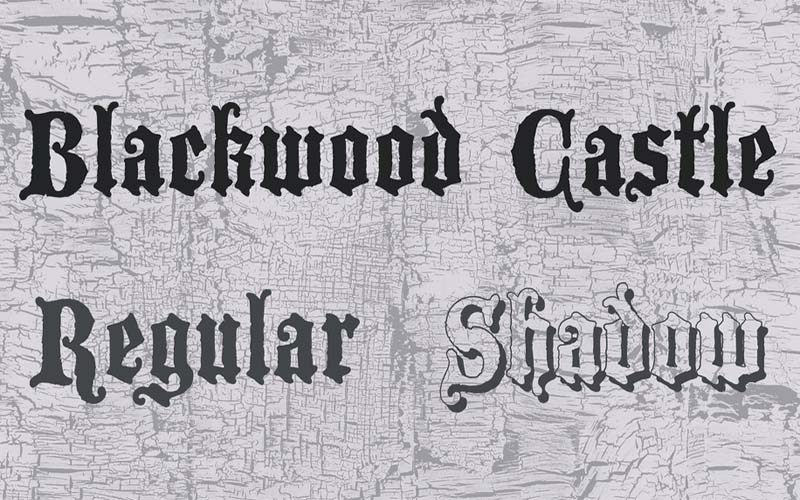
Blackwood Castle font is a Gothic and Medieval typeface. It looks attractive, interesting, and deligated stylish texture which has black, Halloween, and shadowed letters.
Dieter Steffmann is known as a primary font designer of Blackwood Castle font. He made about 600 self-proclaimed old-fashioned fonts. He also has his own Font Shop with the name of Dieter Steffmann’s foundry in Kreuztal.
This ancient and holiday font was published on May 22, 2000. The subfamily of Blackwood Castle font is regular. This royal and eroded font comes with 19 unique versions.
That consists of Regular, Italic, Condensed, Condensed Italic, Expanded, Expanded Italic, and 3D, 3D Italic, Outline, Outline Italic, Laser, Laser Italic, Gradient, Gradient Italic, Halftone, Halftone Italic, Semi-Italic, Super Italic and Leftalic.
Blackwood Castle Font
It is thoroughly suitable for different stylish objectives such as product packaging, graphical projects, the background of images, and noticeably more.
This old English and black letter font defend divergent multiple languages. This pretty and Halloween-style font is an immense choice to increase the conspicuous in your project.
This comely and lovely free version font has 213 characters which are available in all lowercase and uppercase letters, a few numbers, and some special characters as well.